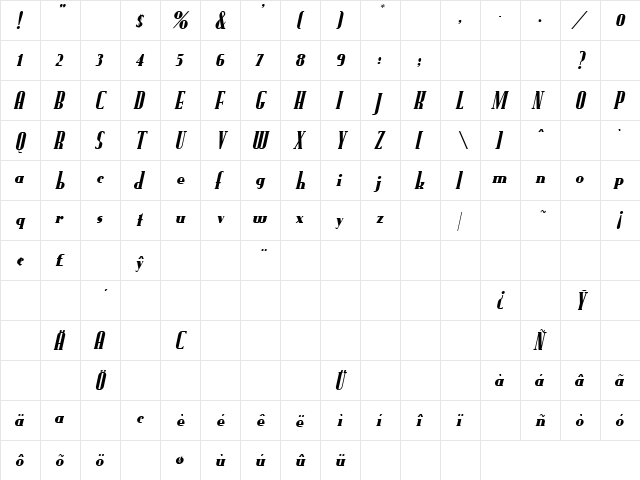
New Kid 1 Regular Font Preview
New Kid 1 Regular
Design Context for New Kid 1 Typeface
New Kid 1 offers clean, dependable letterforms without strong stylistic allegiance, making it a practical choice for designers who need flexibility.